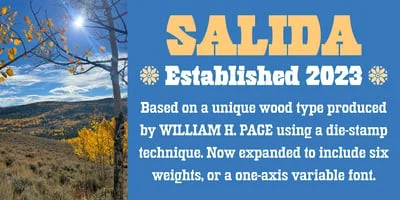
Salida Font
Salida Font is perfect for directional design projects including exit signage systems, wayfinding companies, navigation software interfaces, travel guide publications, emergency exit materials, transportation hubs, airport terminal signage, and clear communication campaigns. This functional typeface works perfectly for safety consulting firms, architectural wayfinding specialists, public transportation authorities, emergency preparedness organizations, and projects that prioritize clear communication and directional guidance in public spaces.
What makes Salida Font exciting is its clear directional character that perfectly captures the essence of navigation clarity and wayfinding precision. The font features clean letterforms with excellent readability that reflects the critical importance of clear communication in emergency and navigation situations. Its functional design elements embody the spirit of public safety and directional efficiency, making it perfect for projects that need to convey clarity, urgency, and connection to wayfinding systems. The carefully crafted legible proportions create an atmosphere of safety sophistication and navigational authenticity.
Salida Font comes in multiple family variations including clear, directional, functional, and safety styles. Each weight maintains the distinctive wayfinding character while offering different levels of clarity intensity and directional presence. The font family includes navigation alternates, safety ligatures, and directional variations that provide designers with comprehensive options for creating truly clear and authentically functional typographic compositions that celebrate wayfinding excellence.
Whether you're designing safety branding, creating directional marketing materials, or developing wayfinding promotional graphics, Salida Font provides the perfect typographic foundation for projects that celebrate navigation excellence and safety sophistication. This remarkable typeface transforms ordinary text into compelling expressions of directional wisdom and safety clarity. Download this clear font today and guide your design projects with the wayfinding authenticity and navigational precision that captures the essential spirit of public safety and directional communication excellence.